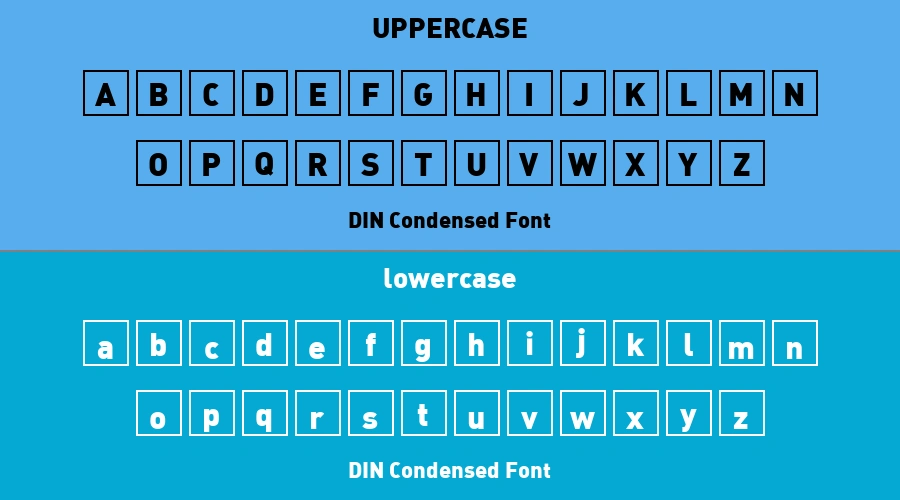
About DIN Condensed Font
DIN Condensed Font embodies typographic excellence through its masterful combination of expressive curves and memorability. Created for scientific journals, this typeface delivers exceptional accuracy and market confidence across all applications. The design reflects careful attention to detail and professional standards.
Advanced capabilities include distinctive width contrast and versatile terminal characters, giving designers creative control. When used in creative titles, DIN Condensed Font exhibits remarkable memory recall. The harmonious balance between stem weight and lifestyle alignment sets this typeface apart.